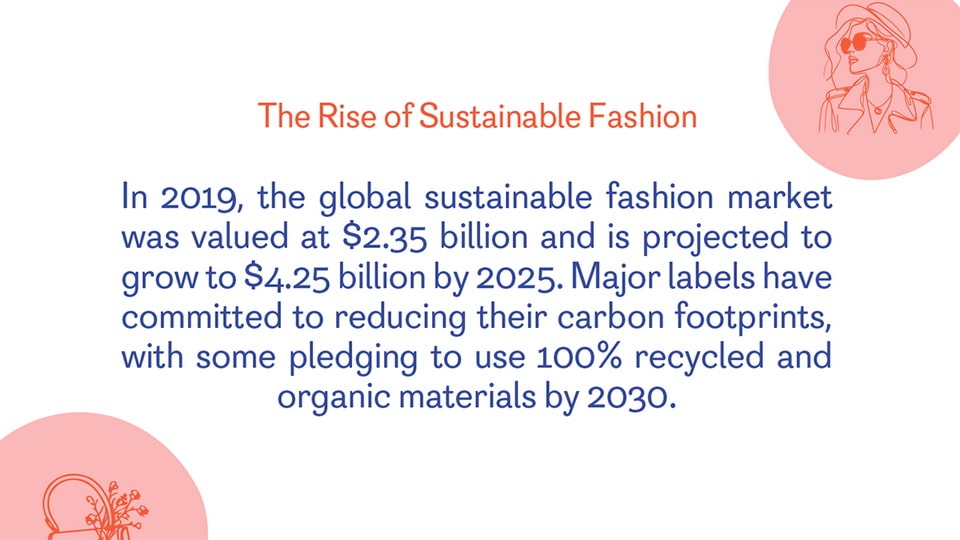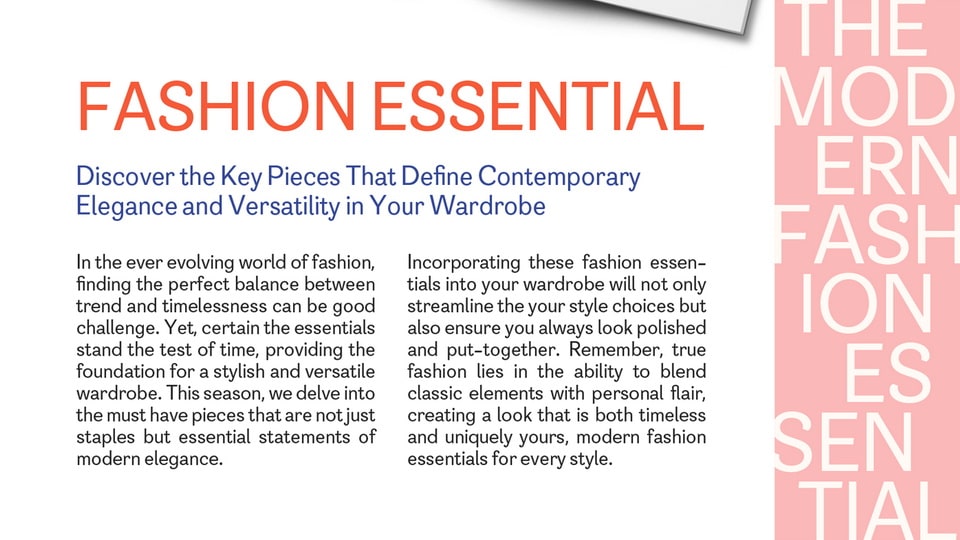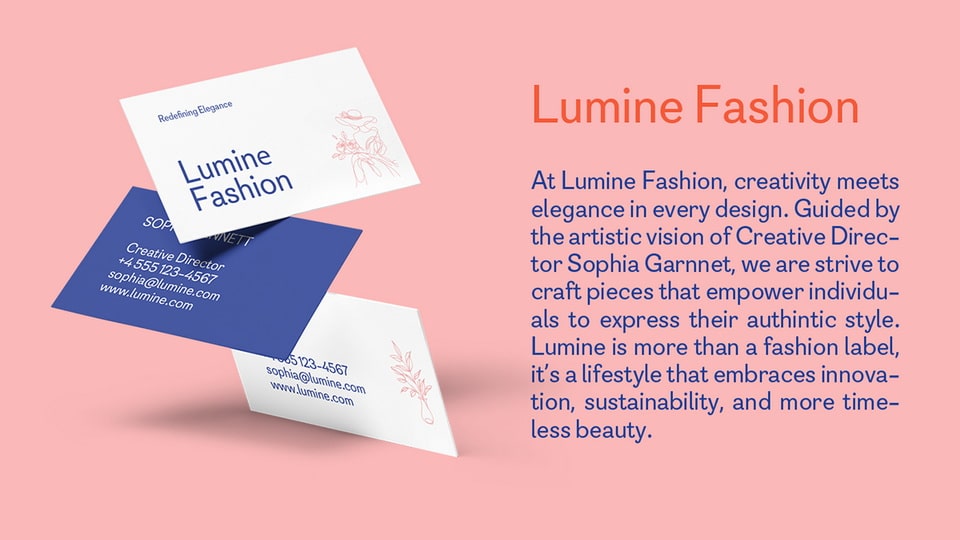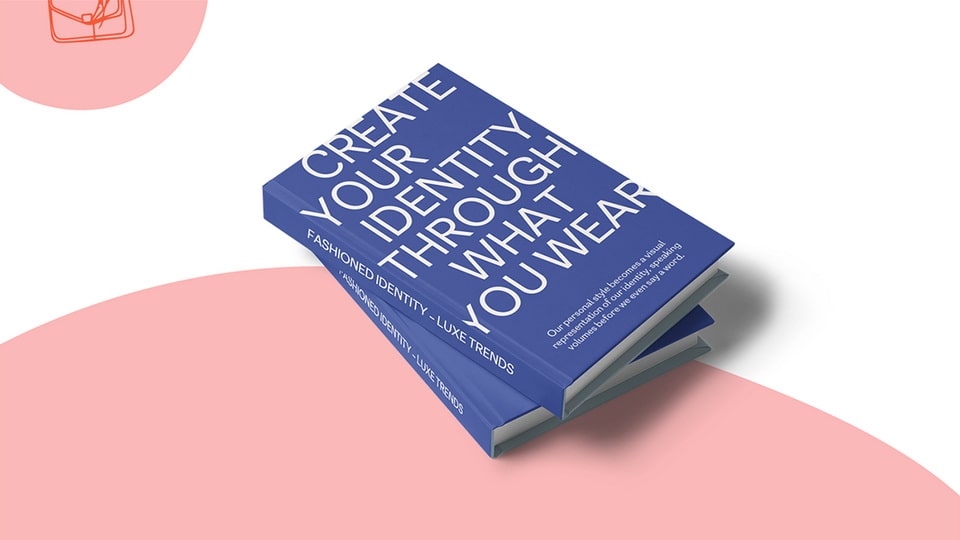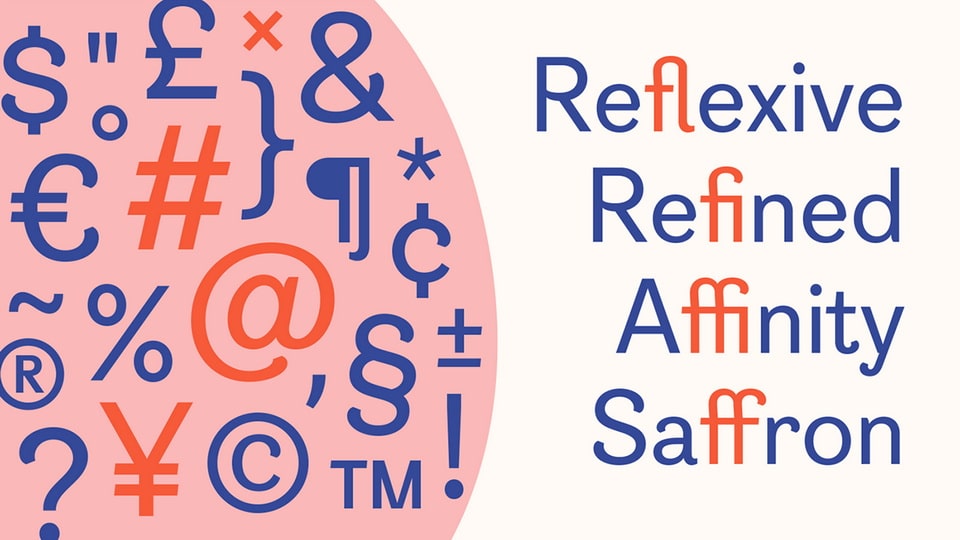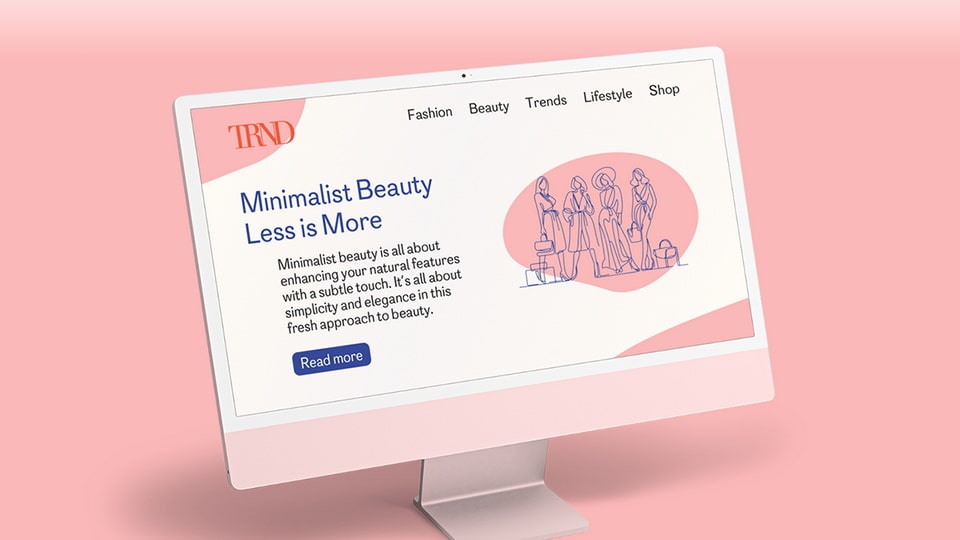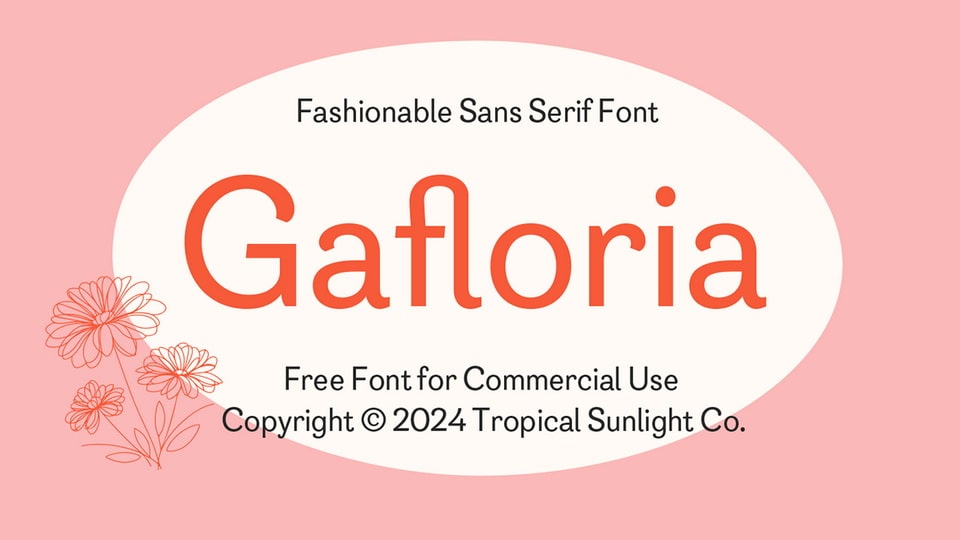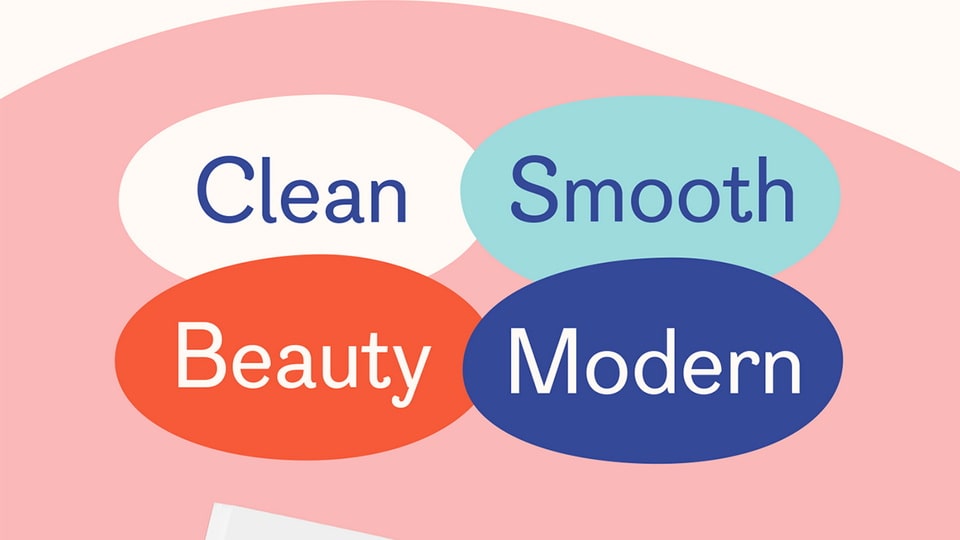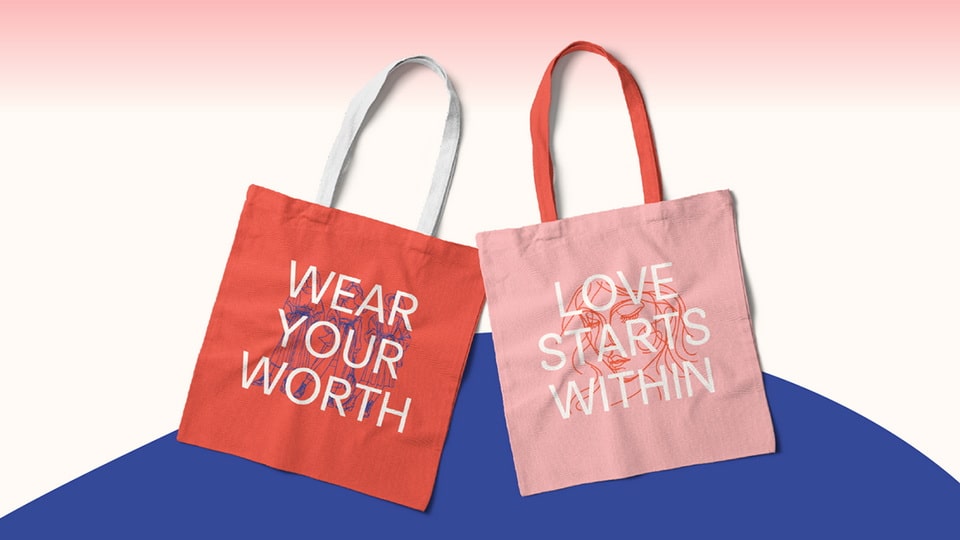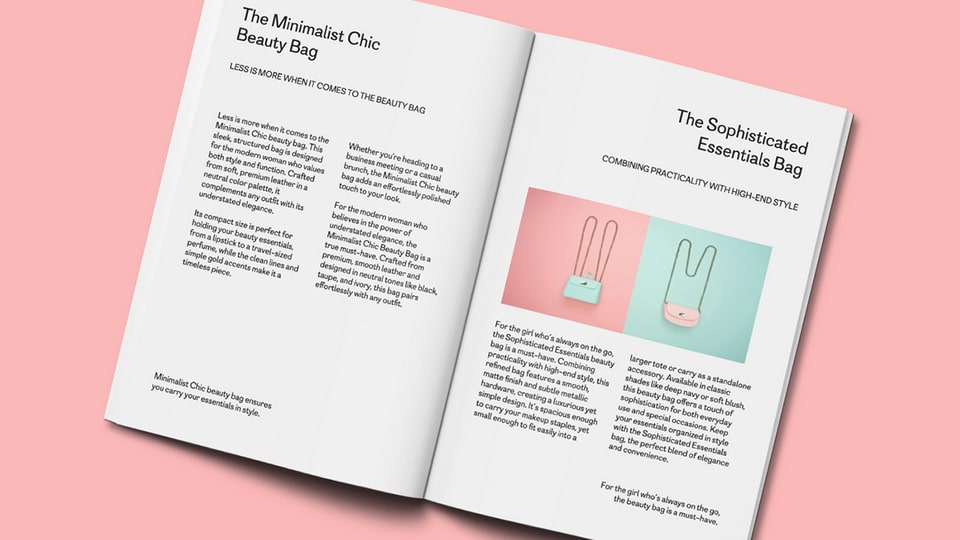
Gafloria Font
Gafloria is a modern sans serif font designed for fashion magazines. With its clean lines and smooth curves, it exudes beauty and elegance, making it the perfect choice for fashion forward editorial content.
Gafloria’s authentic style ensures readability while adding a touch of sophistication to any layout design.